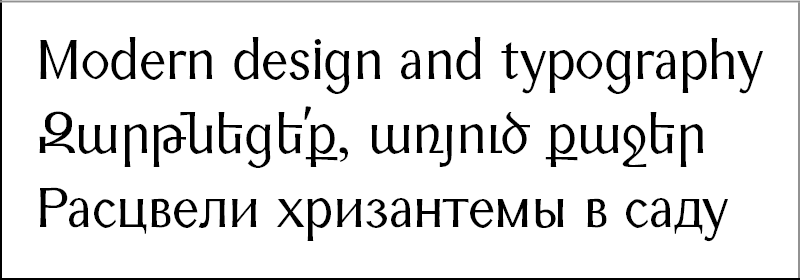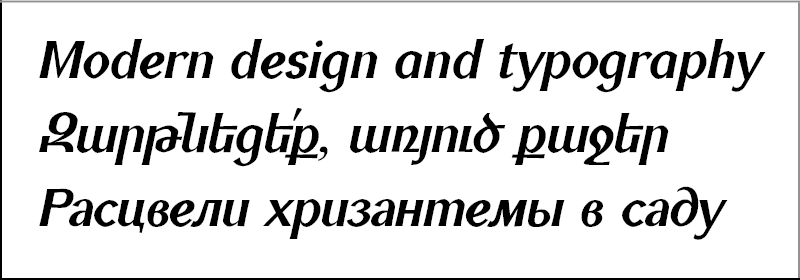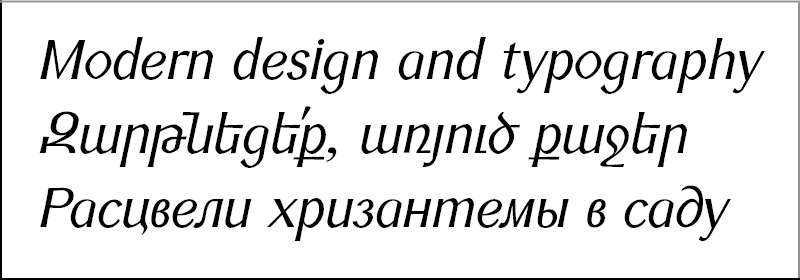
Angela Poghosova, Sans-Serif Typefaces
ASF Goga
Designer: Angela Poghosova
Design date: 2009
The font received the 2nd prize at Granshan competition.
The font family includes Latin, Armenian and Cyrillic alphabet systems.
To be used in texts.